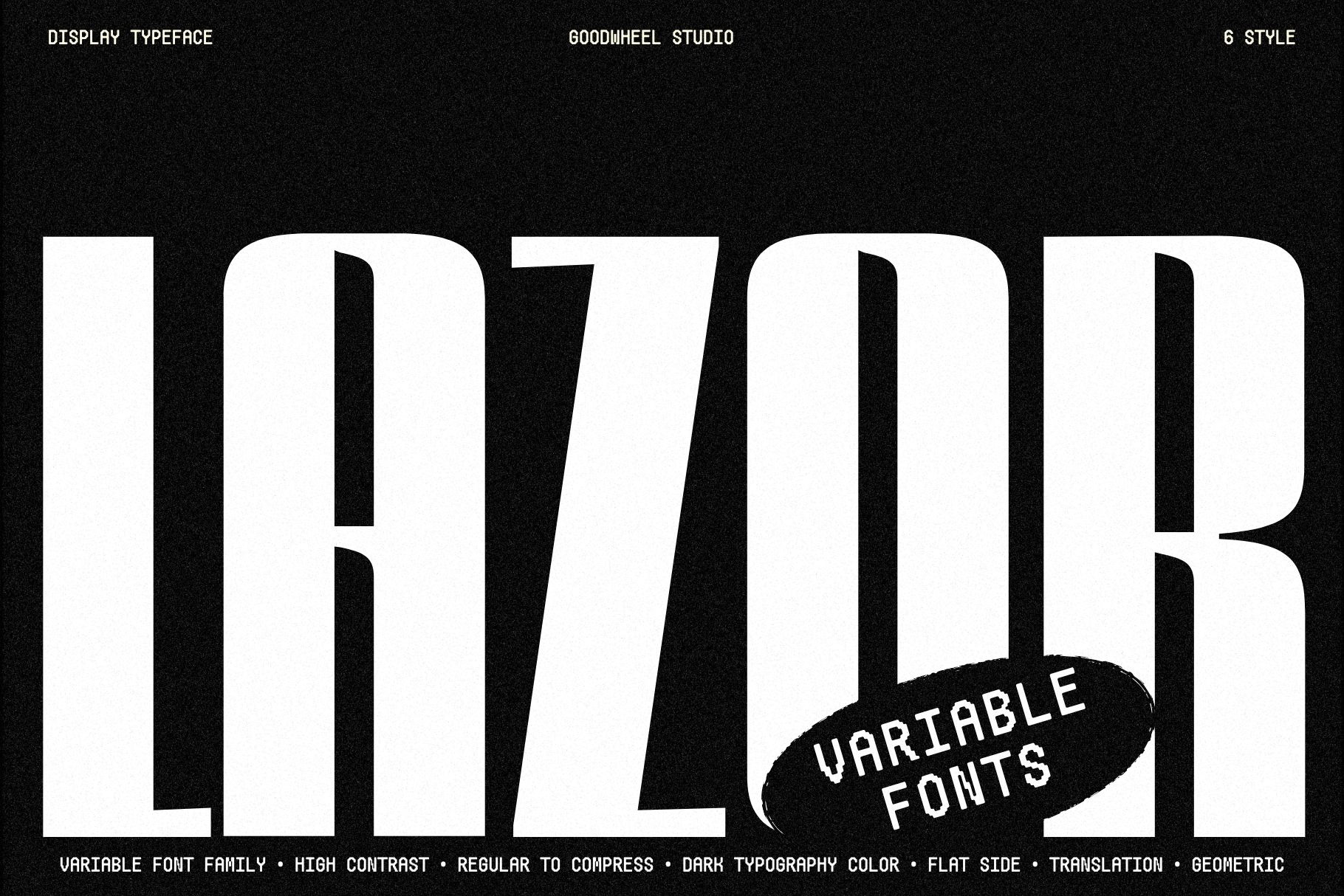
GW Lazor Variable Fonts
This is Variable Font version of Lazor Font Family
This font is well-suited for headlines, posters, and branding projects that aim to appear strong and professional.